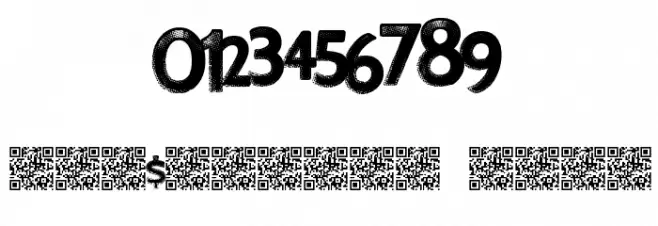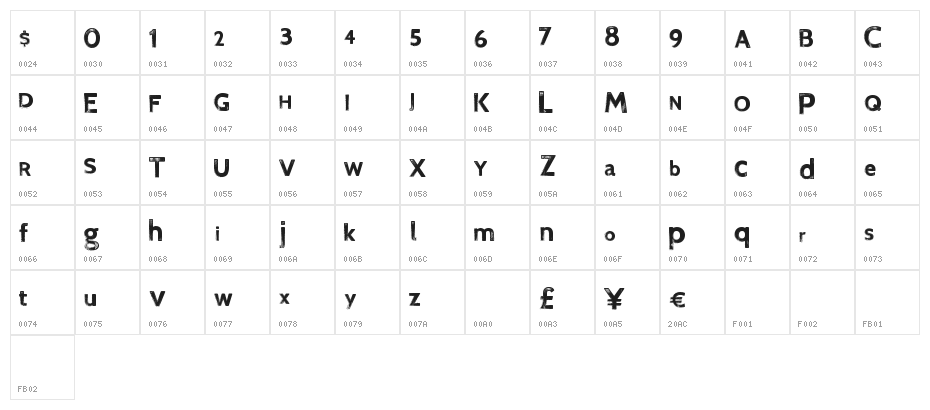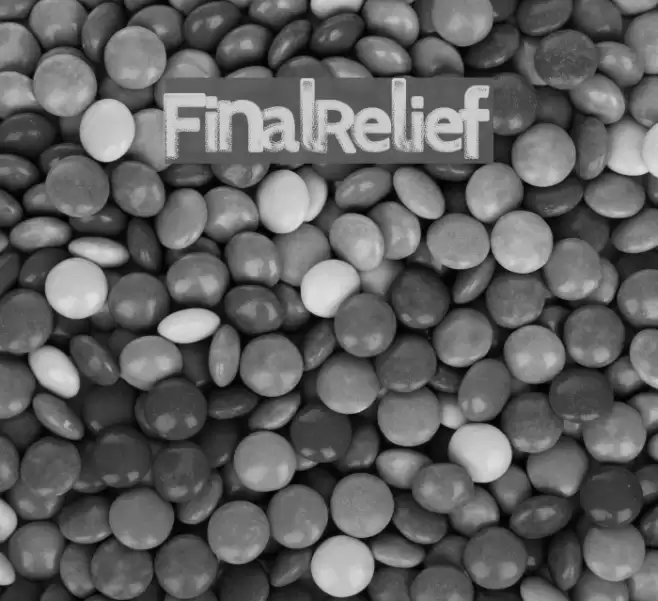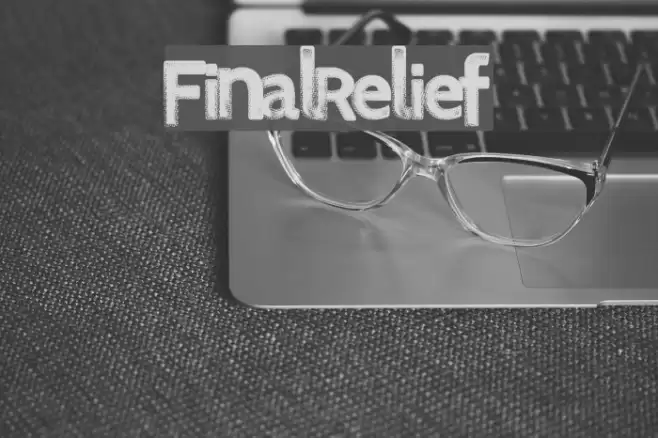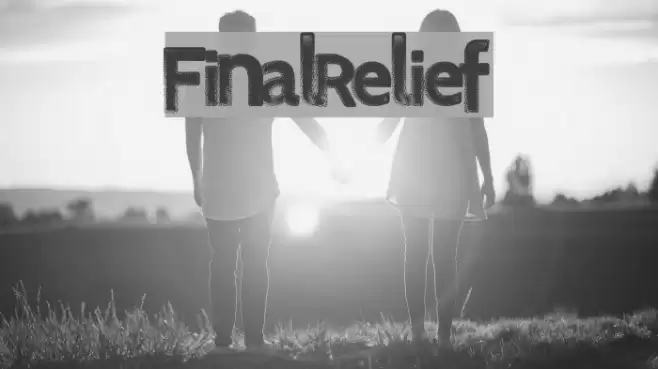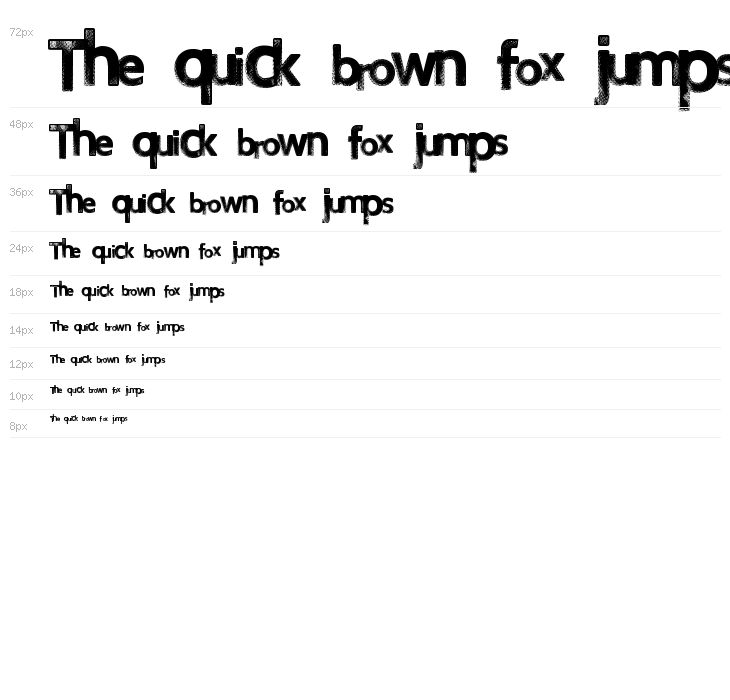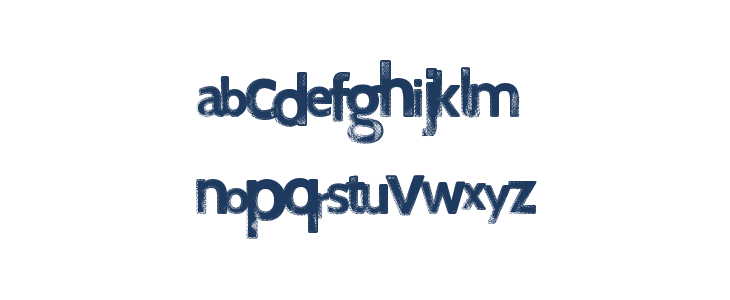
FinalRelief Font
FinalRelief Description
This font features a bold and impactful style with a distressed texture that gives it a unique, gritty appearance. The characters are uniformly bold, with a consistent thickness throughout, creating a strong visual presence. The uppercase and lowercase letters maintain a cohesive look, while the numbers and special characters complement the overall design. The texture adds a vintage or industrial feel, making it suitable for projects that require a rugged or edgy aesthetic. The spacing between characters is normal, ensuring readability despite the textured effect.
| Proposed Projects | Ideal for posters, album covers, branding for edgy or industrial-themed products, and any design requiring a bold statement. |